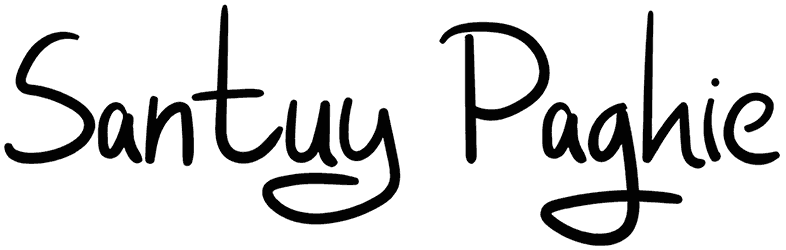
Santuy Paghie Font
Take a look at this casual and unique item that can create a minimal style for your design. As a handwritten font, Santuy Paghie has a modern and matchable mood, and you can set it for any subject. Just try this realisti…
Take a look at this casual and unique item that can create a minimal style for your design. As a handwritten font, Santuy Paghie has a modern and matchable mood, and you can set it for any subject. Just try this realistic script font on your upcoming designs, such as flyers, greeting cards, planners, or the like, and have delight.